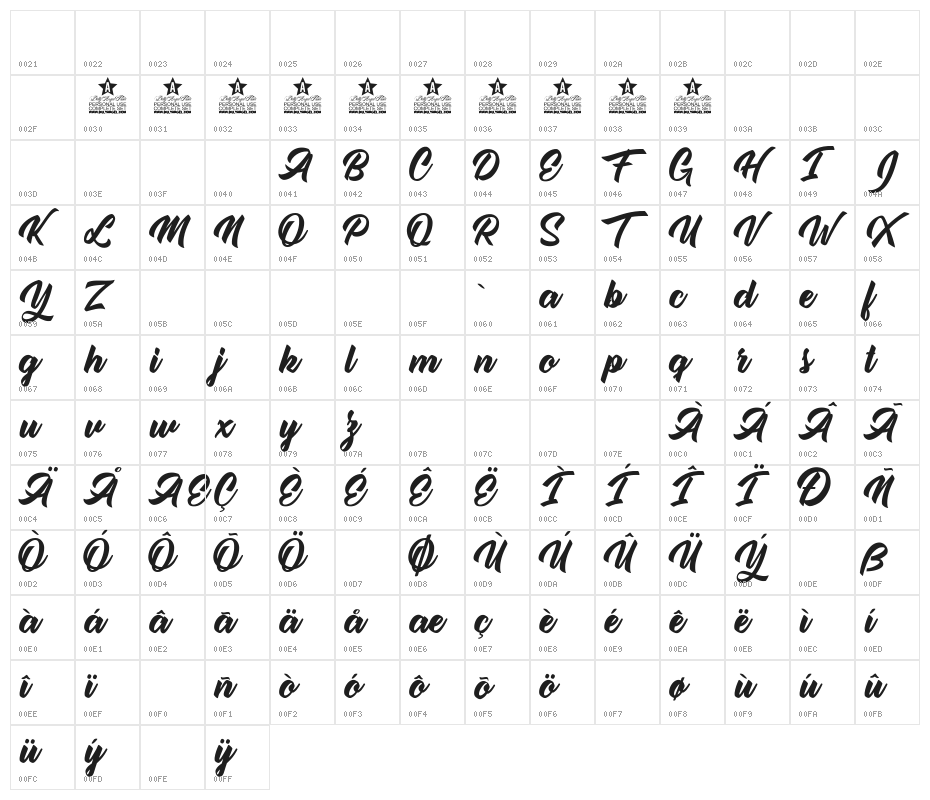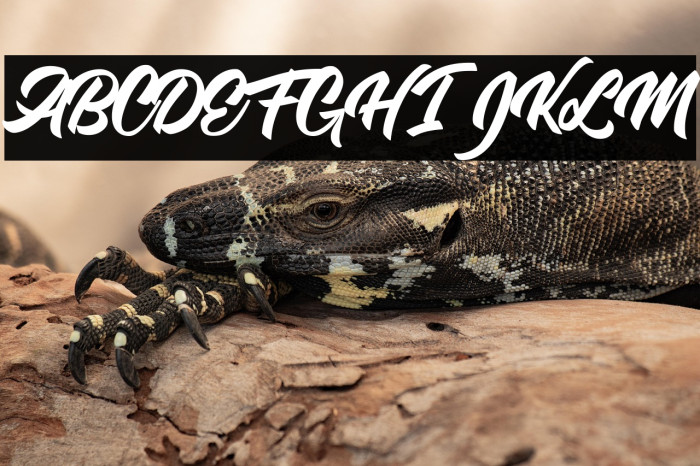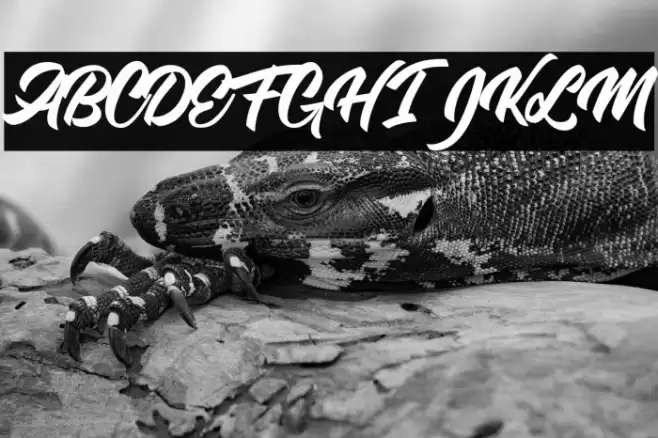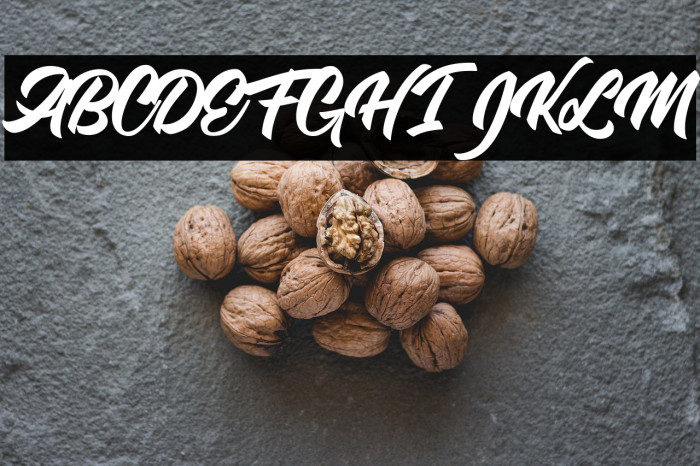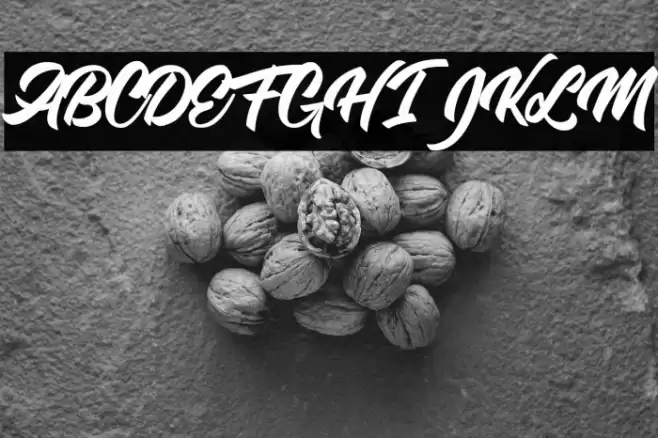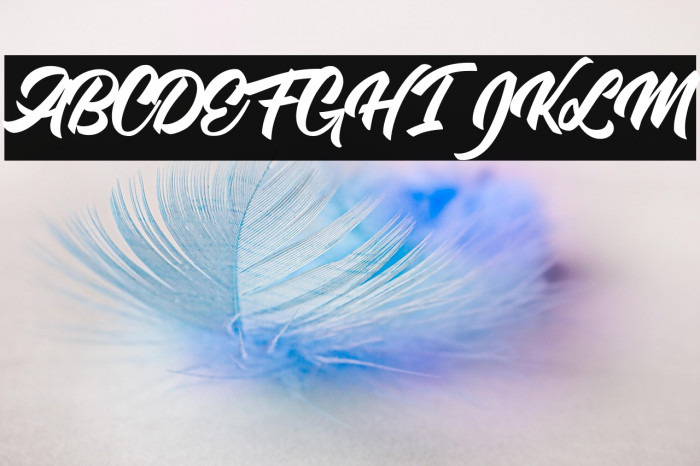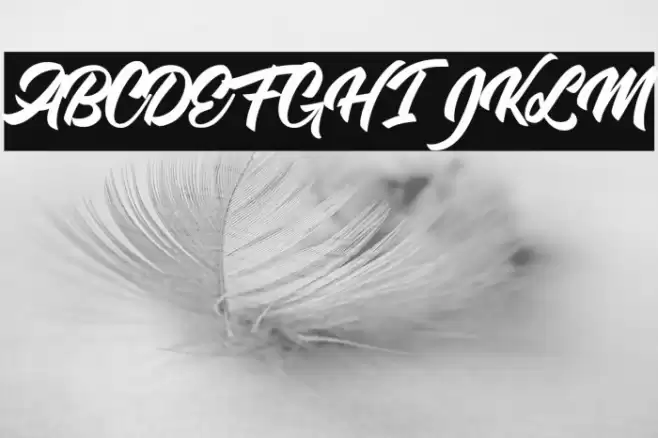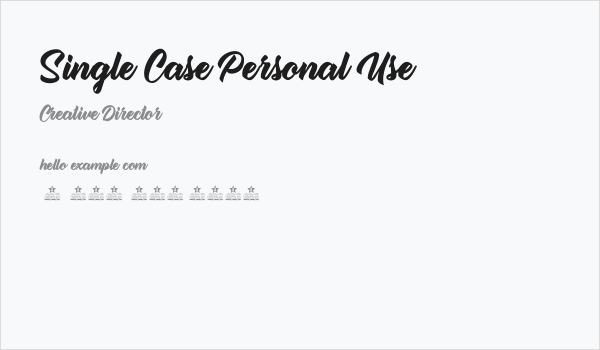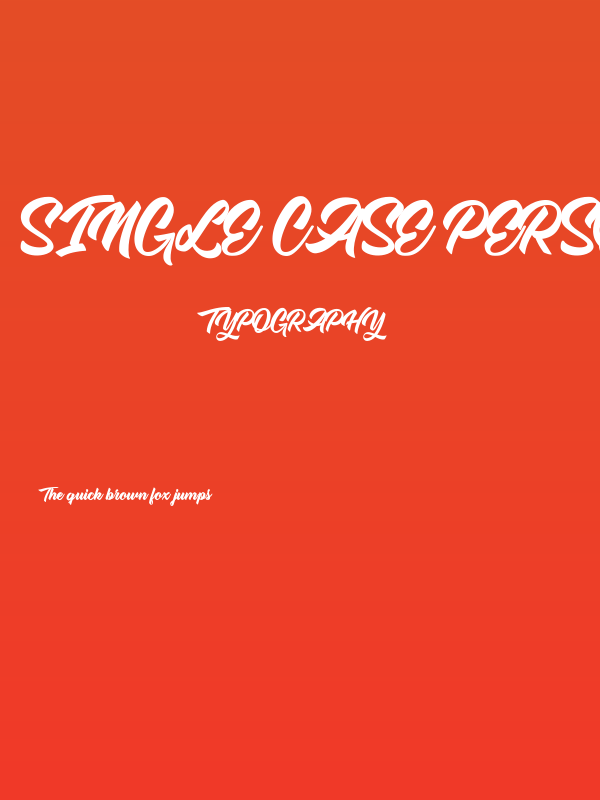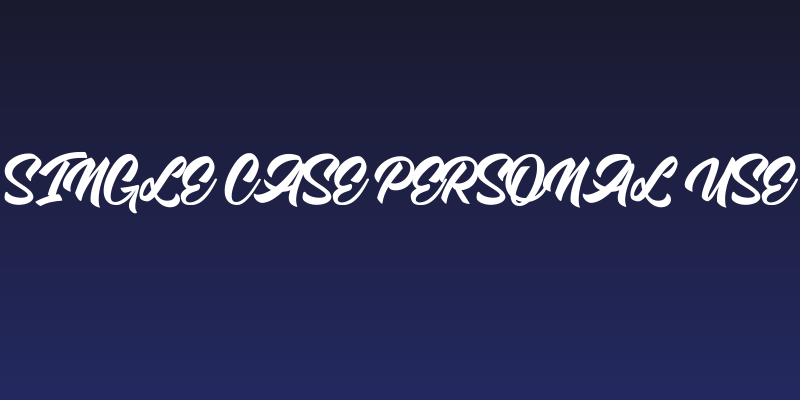
Single Case Personal Use Font
Single Case Personal Use Description
This font features a bold, cursive style with a strong, flowing script that exudes elegance and dynamism. The characters are interconnected, creating a seamless and fluid appearance. The uppercase letters are particularly striking, with dramatic flourishes and a sense of movement. The lowercase letters maintain consistency with their smooth curves and rounded forms. This font is designed to capture attention and convey a sense of sophistication and creativity. It is ideal for projects that require a personal touch or a sense of artistic flair.